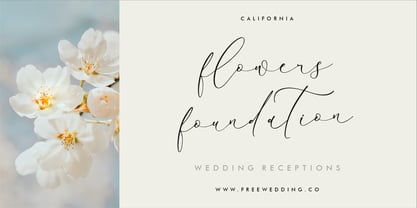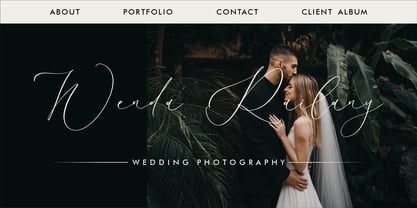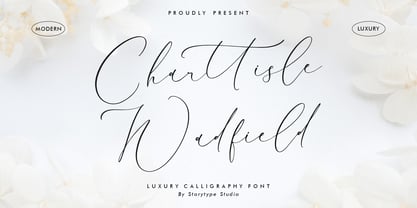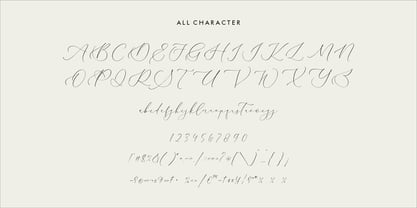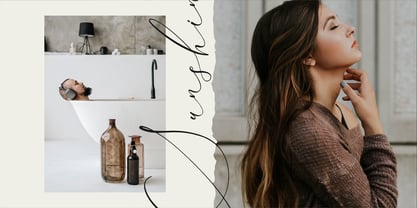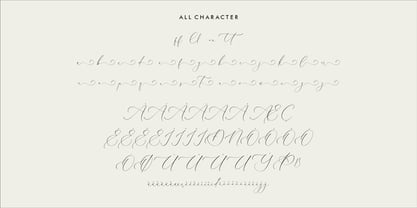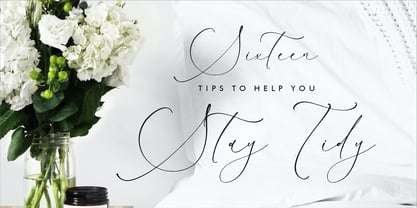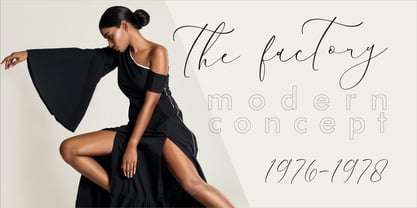
Charttisle Wadfield
by Letterena Studios
The Charttisle Wadfield Font Family was designed by Heru Utama Putra and published by Letterena Studios. Charttisle Wadfield contains 2 styles and family package options.
Charttisle Wadfield is a luxury calligraphy font that has own unique style & modern look. This typeface is perfect for an elegant & luxury logo, book or movie title design, fashion brand, magazine, clothes, lettering, quotes, and so much more.